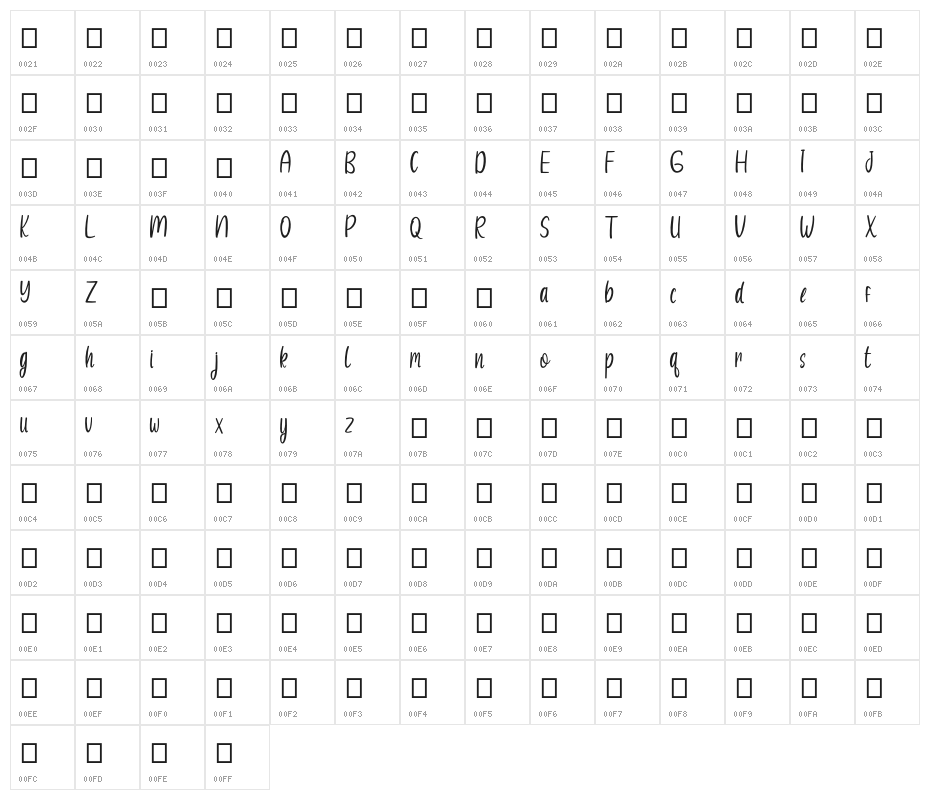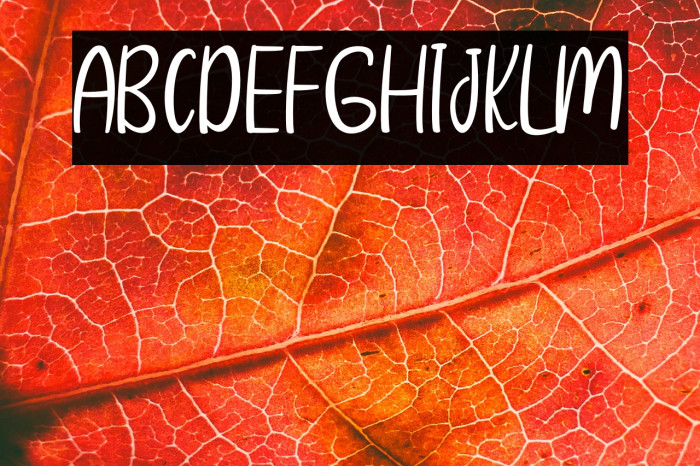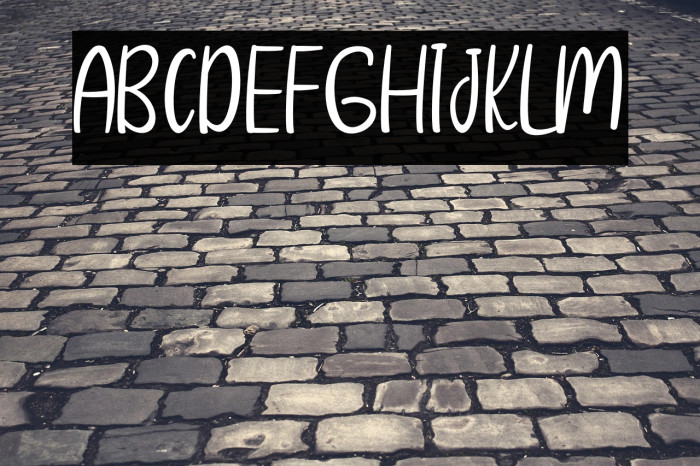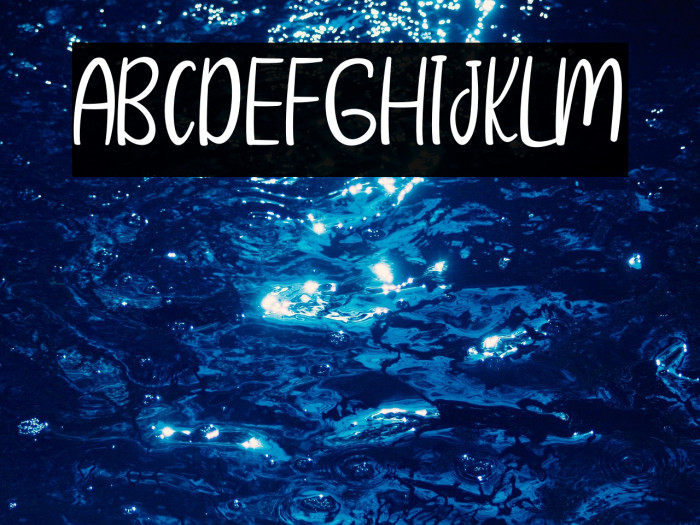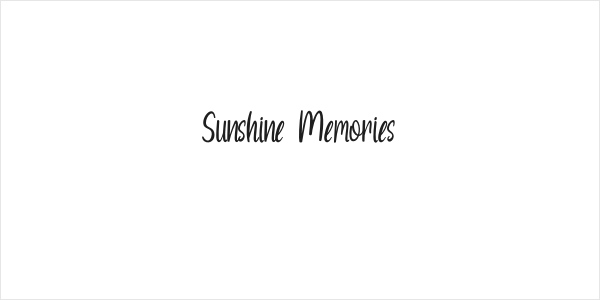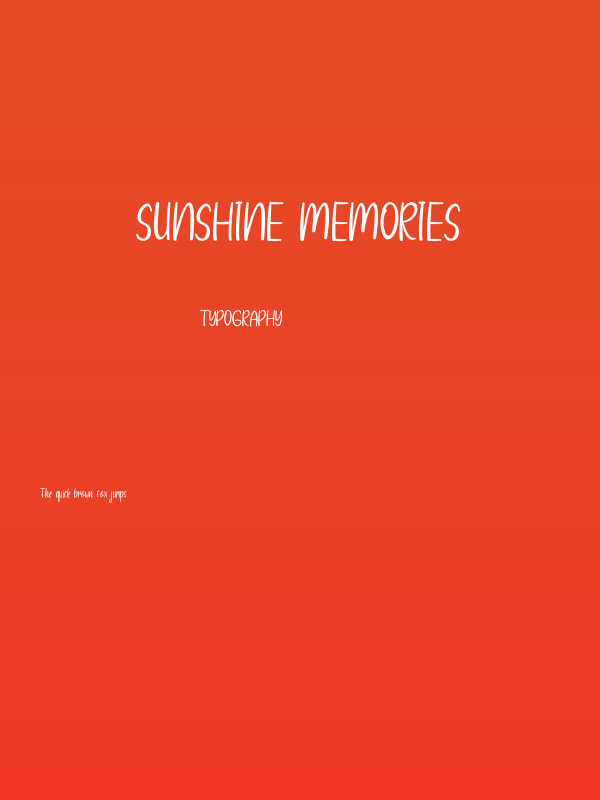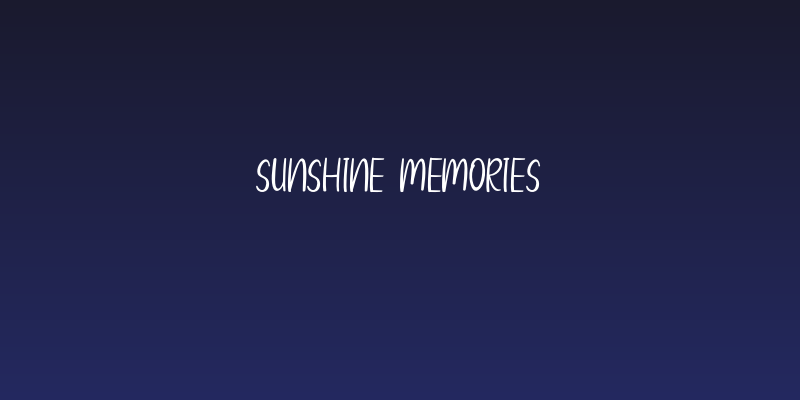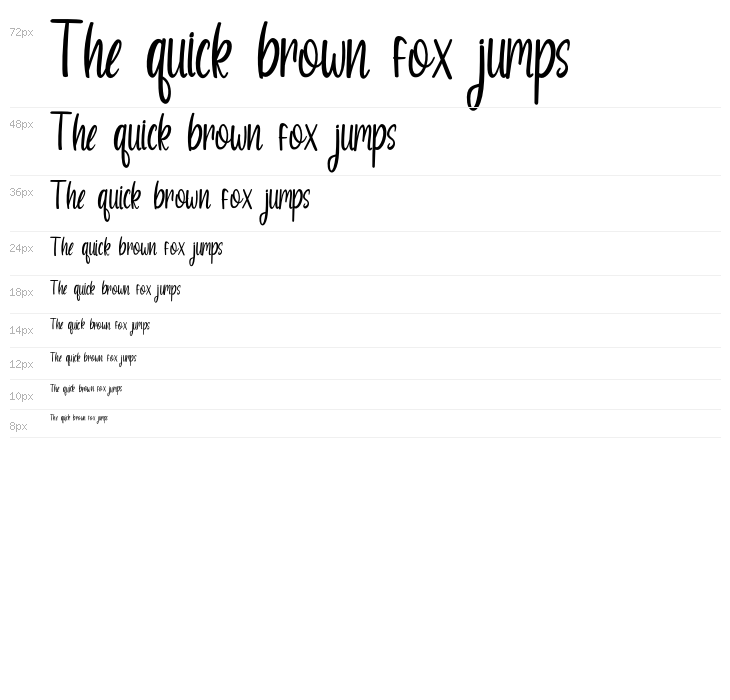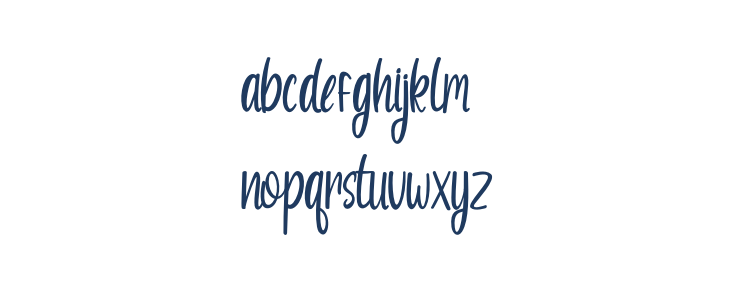
Sunshine Memories Font
Sunshine Memories Description
This font features a playful and casual handwritten style with smooth curves and a slightly slanted orientation. The uppercase letters are bold and prominent, while the lowercase letters maintain a consistent flow, enhancing readability. The characters are well-spaced, providing a balanced appearance. The font exudes a friendly and approachable vibe, making it suitable for creative and informal projects. The absence of special characters suggests a focus on simplicity and elegance.
| Proposed Projects | Ideal for greeting cards, invitations, personal branding, and social media graphics. |